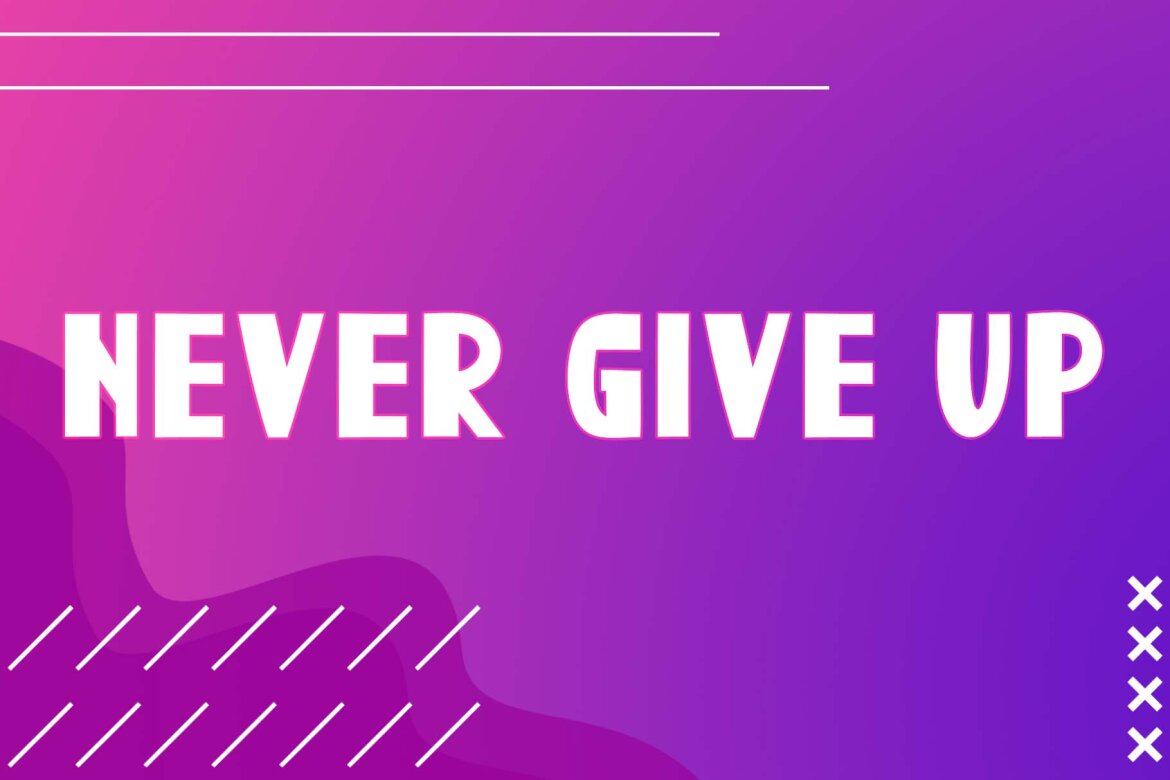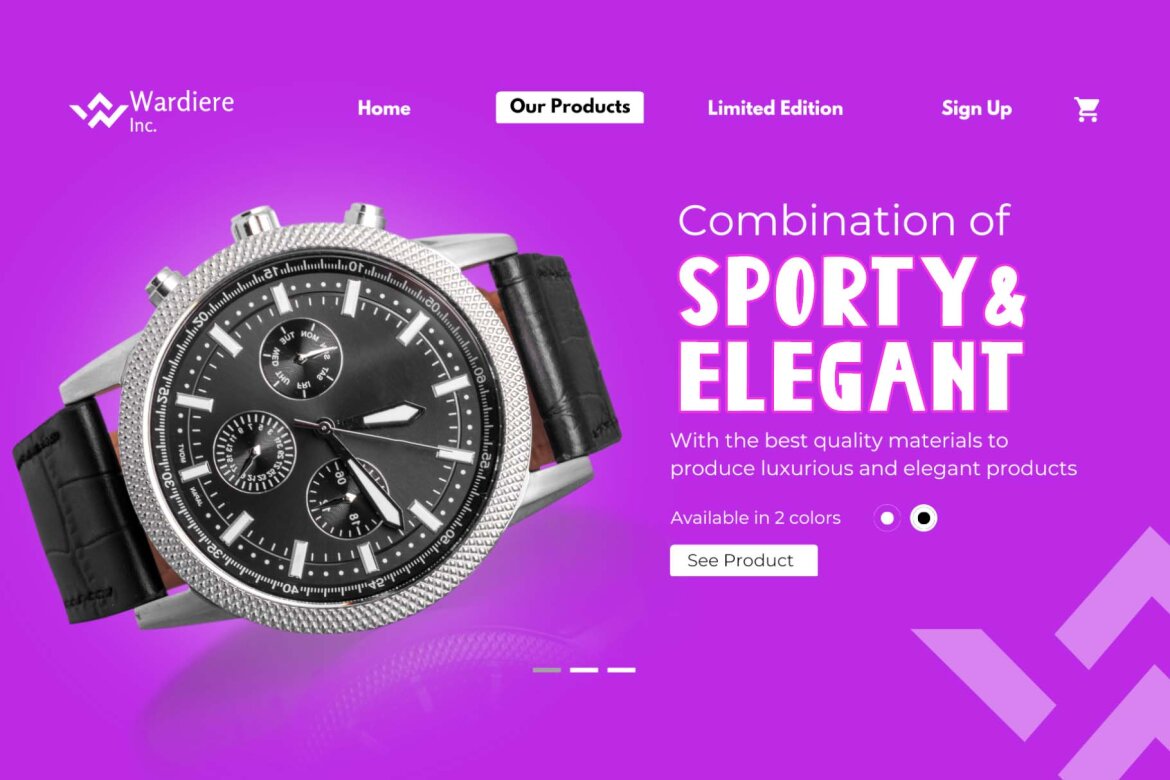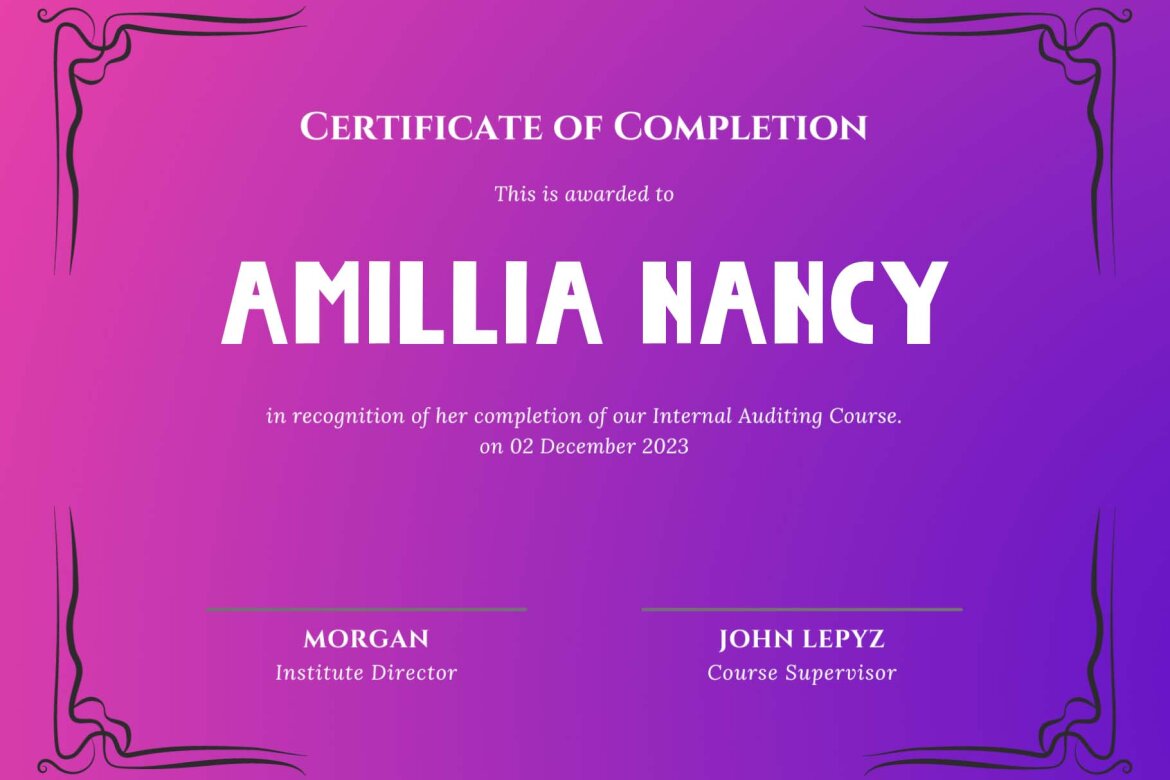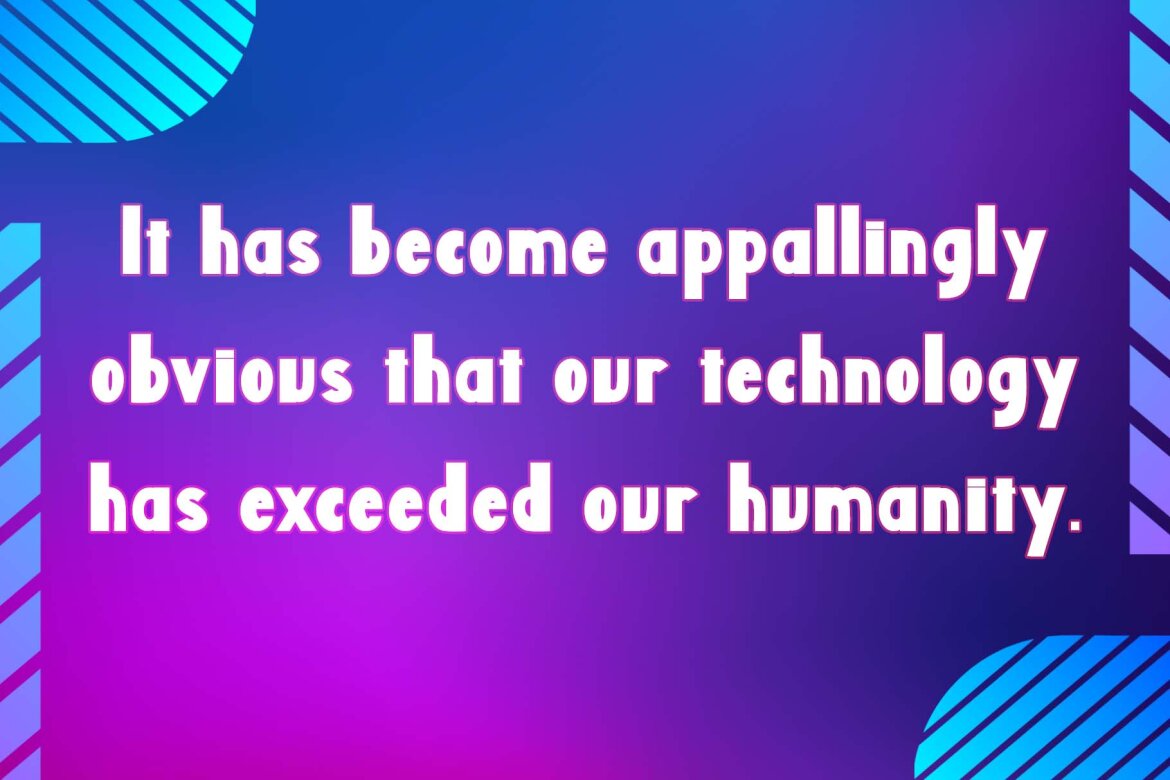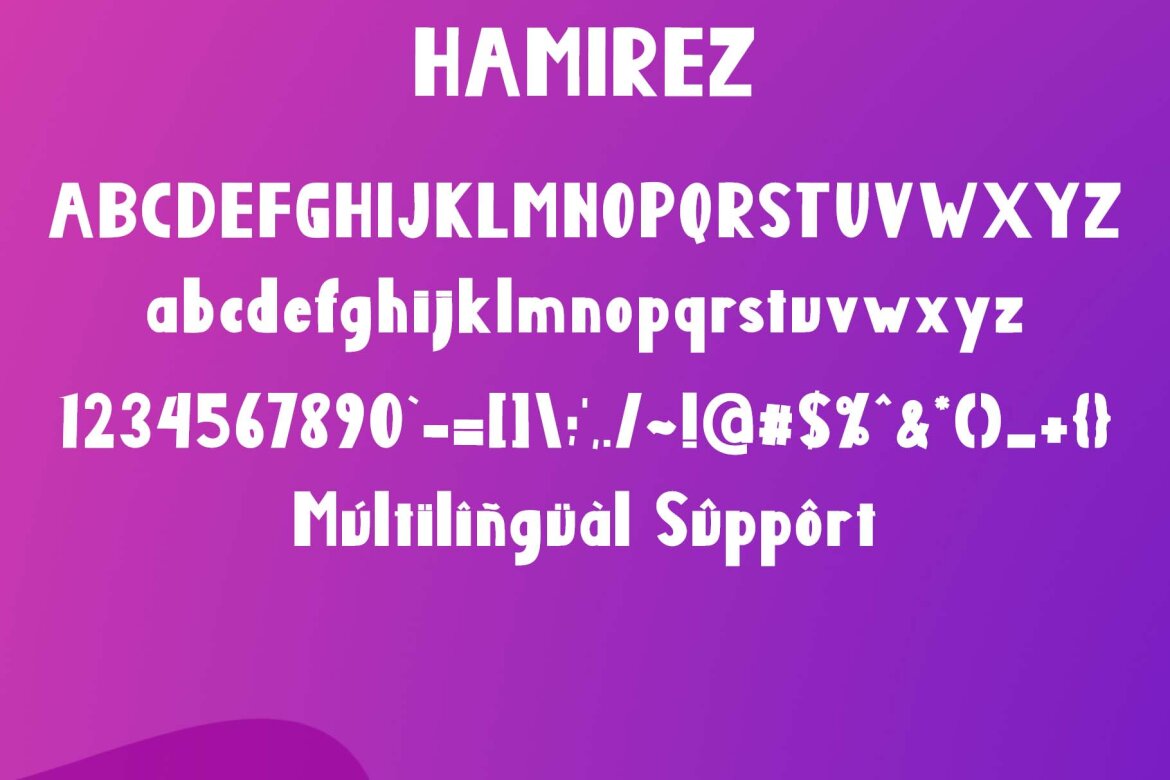
Hamirez Free Font
Hamirez
"Hamirez" is a sans serif font that is unique, modern, and elegant. This font is equipped with upper- and lower-case letters, numerals, punctuation, and multilingual support. It is suitable for banners, branding, logos, posters, stickers, business branding, social media, and others.
• lowercase
• numeral
• punctuations
• uppercase